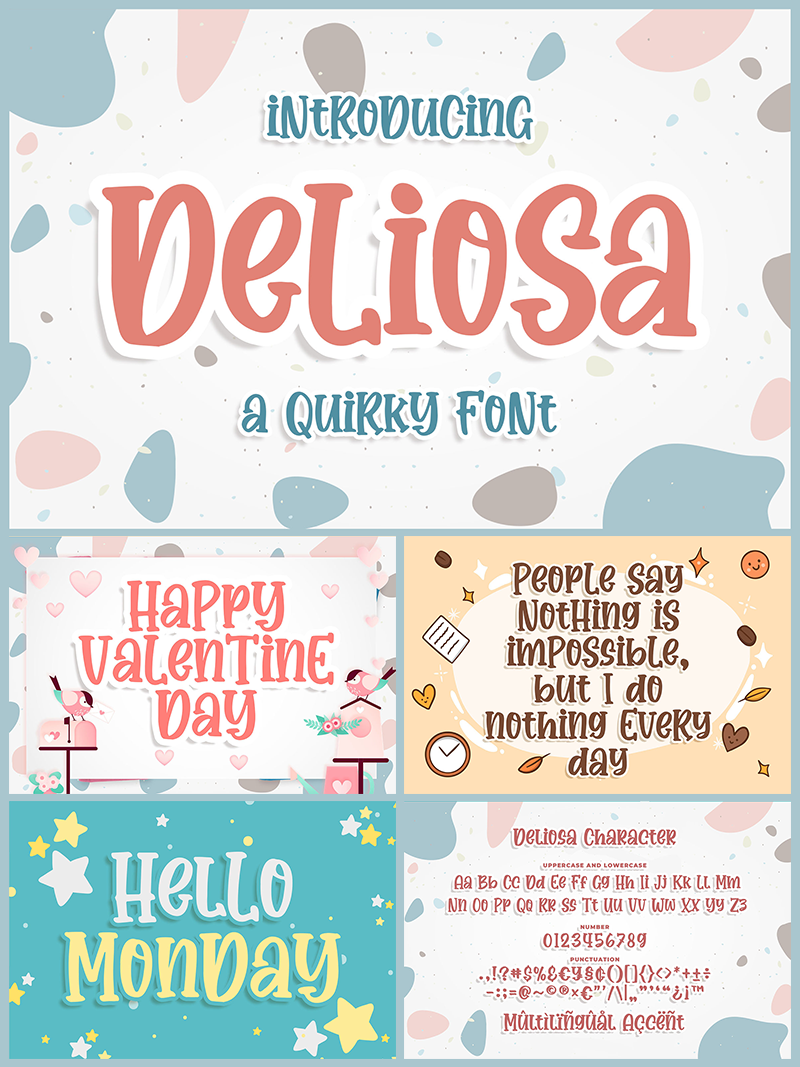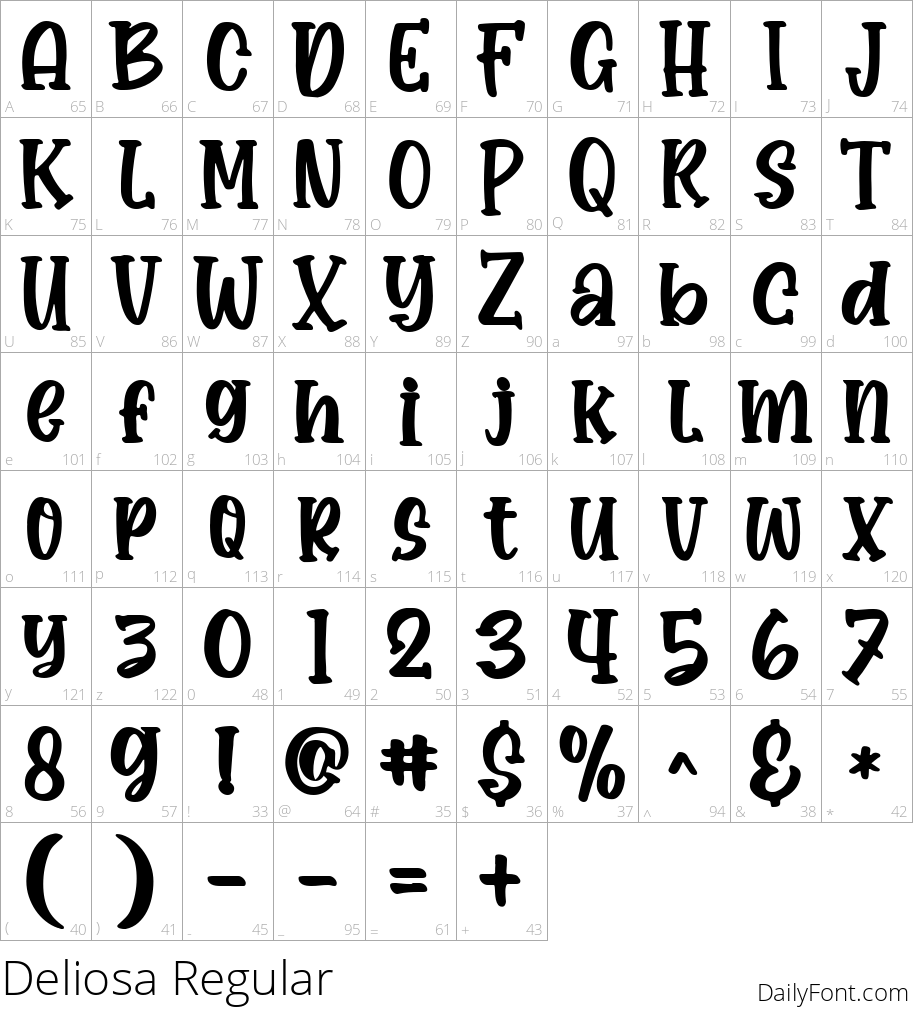
Deliosa
Deliosa is a fun and playful script font that brings personality to any project. Its lively, flowing letterforms feel approachable and friendly, making headlines, logos, and callouts pop with character. Though expressive, Deliosa remains readable at display sizes, helping your message land with warmth and charm. Whether you're crafting greeting cards, social graphics, posters, or branding elements, this font adds a touch of whimsy while staying professional enough for modern design contexts. It's a versatile choice designers reach for when they want a signature-like feel that works across many applications.
Deliosa pairs beautifully with clean sans-serif headings or muted textures for packaging and editorial layouts. Use it for accents, quotes, or hero lines to draw attention without overpowering the main content. Its flexible personality makes it suitable for brand identities, event invitations, and playful social media campaigns alike. By incorporating Deliosa, you invite a sense of celebration and creativity into your artwork, helping audiences connect emotionally and remember your message long after they encounter it.